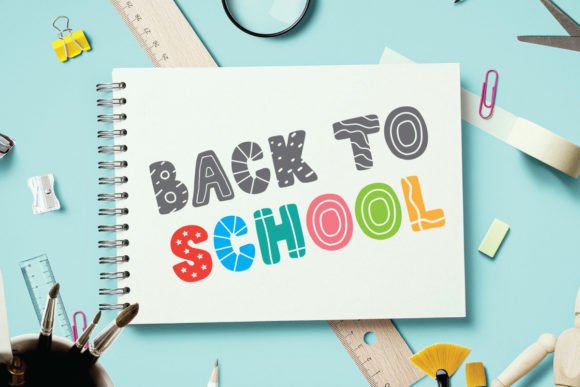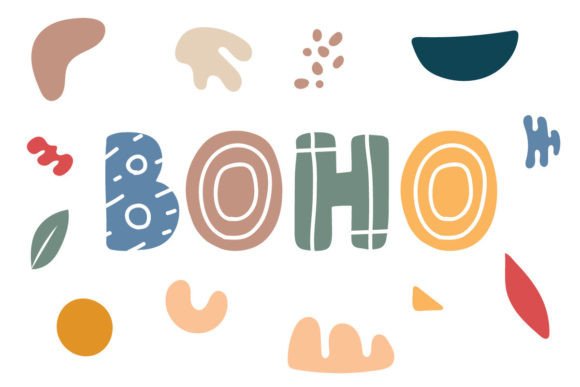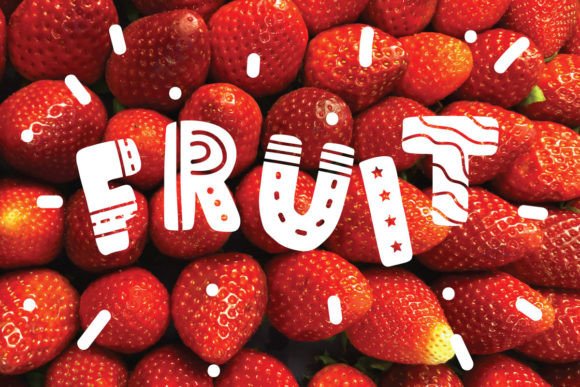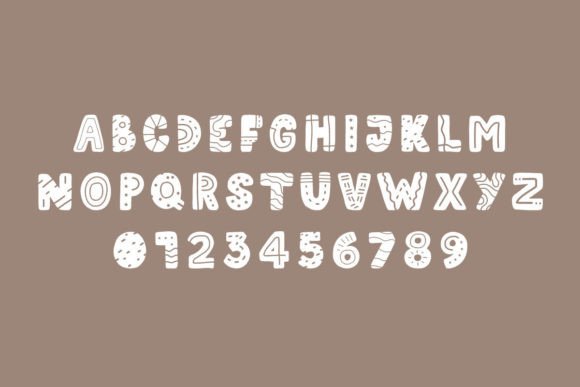
Ducky Font: The Ultimate Decorative Font for Creative Projects
Are you a designer, crafter, or DIY enthusiast looking for a unique and playful font to elevate your creative projects? Look no further than Ducky Font, a delightful decorative font that is sure to capture the attention of your audience. With its abstract shapes and cute design, Ducky Font is perfect for a wide range of applications, from titles and logos to product packaging, branding projects, magazines, social media, weddings, and more!
What Makes Ducky Font So Special?
Ducky Font is a one-of-a-kind decorative font that boasts a distinctive and charming design. Its abstract shapes and adorable aesthetic make it an excellent choice for anyone looking to add a touch of whimsy and personality to their projects. Whether you’re creating a brand identity, designing a logo, or crafting a social media post, Ducky Font is sure to make your work stand out from the crowd.
Endless Creative Possibilities with Ducky Font
One of the best things about Ducky Font is its versatility. This amazing font can be used in a multitude of creative projects, including:
- Titles and Headings: Add a pop of personality to your titles and headings with Ducky Font’s unique and eye-catching design.
- Logos and Branding: Create a memorable brand identity with Ducky Font’s distinctive and charming aesthetic.
- Product Packaging: Make your products stand out on store shelves with Ducky Font’s adorable and attention-grabbing design.
- Magazines and Publications: Add a touch of whimsy and fun to your magazine or publication with Ducky Font’s playful design.
- Social Media: Elevate your social media posts and stories with Ducky Font’s cute and engaging aesthetic.
- Weddings and Events: Use Ducky Font to create beautiful and unique wedding stationery, signage, and decorations.
Why Designers and Crafters Love Ducky Font
Ducky Font has quickly become a favorite among designers and crafters, and for good reason. Here are just a few reasons why:
- Unique Design: Ducky Font’s abstract shapes and cute design make it a one-of-a-kind font that is sure to turn heads.
- High-Quality: Ducky Font is a high-quality font that is designed to produce crisp and clear results, even at small sizes.
- Versatility: Ducky Font can be used in a wide range of creative projects, making it a valuable addition to any designer’s or crafter’s toolkit.
Tips for Using Ducky Font in Your Projects
Here are a few tips for using Ducky Font in your projects:
- Experiment with Colors: Ducky Font looks great in a variety of colors, so don’t be afraid to experiment and find the perfect hue for your project.
- Mix and Match: Combine Ducky Font with other fonts and design elements to create a unique and eye-catching look.
- Play with Size: Ducky Font can be used at a variety of sizes, from large headings to small text, so don’t be afraid to experiment and find the perfect size for your project.
| Font Name | Ducky Font |
| Author | FONTNDA |